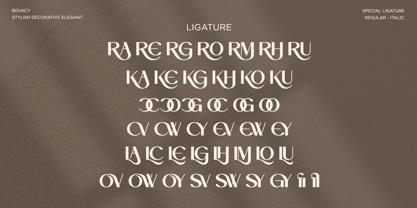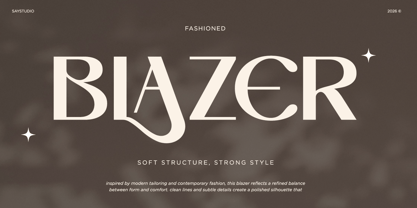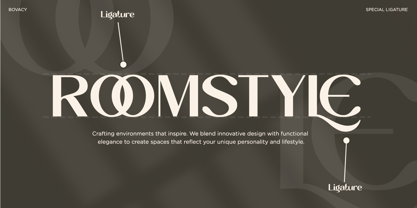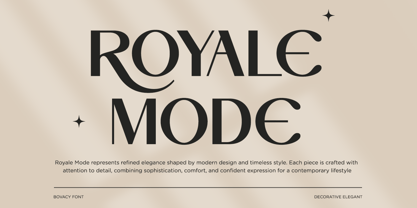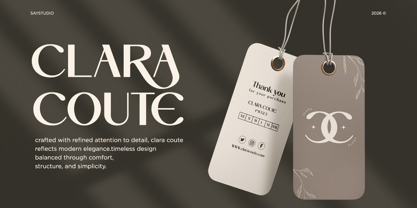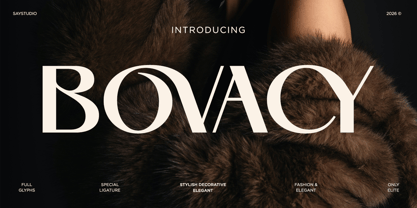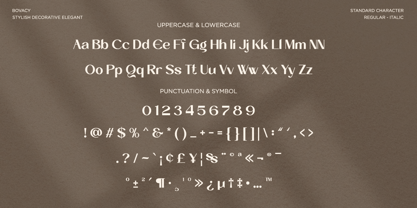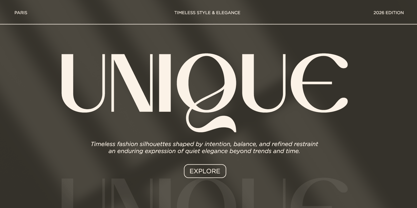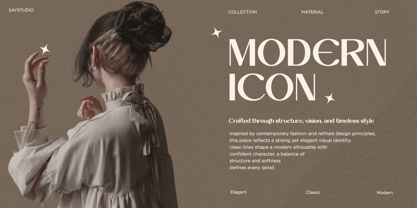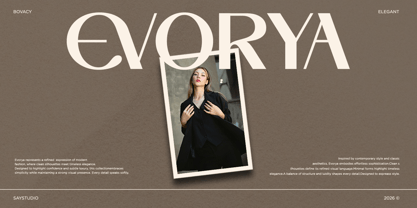
Bovacy
by Say Studio
The Bovacy Font Family was designed by Mussyayin and published by Say Studio. Bovacy contains 2 styles and family package options. More about this family
Bovacy is a modern luxury serif typeface designed to convey elegance, confidence, and high-end aesthetics. Drawing inspiration from contemporary fashion editorials and premium branding, Bovacy features a harmonious blend of refined curves and sharp contrasts, resulting in letterforms that exude exclusivity, style, and timelessness. Each character is meticulously crafted to stand out while preserving a clean and graceful presence. With its stylish decorative details and unique ligatures, Bovacy adds a sophisticated touch to headlines, logos, magazines, beauty branding, and luxury packaging. The balance between classic serif structure and modern elegance ensures its versatility for both bold display applications and refined editorial compositions. Tailored for designers who seek exclusivity, Bovacy offers a strong visual identity with a polished, fashion-forward appearance. Whether utilized for high-end branding, elegant typography systems, or striking visual campaigns, Bovacy enhances your design with an unmistakable luxury appeal. Thank You, Have a Good Day! Saystudio
Designers: Mussyayin
Foundry: Say Studio